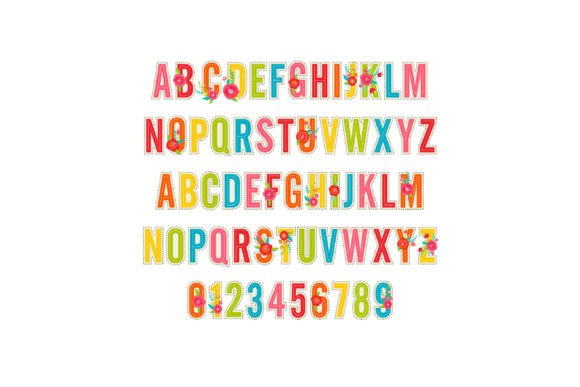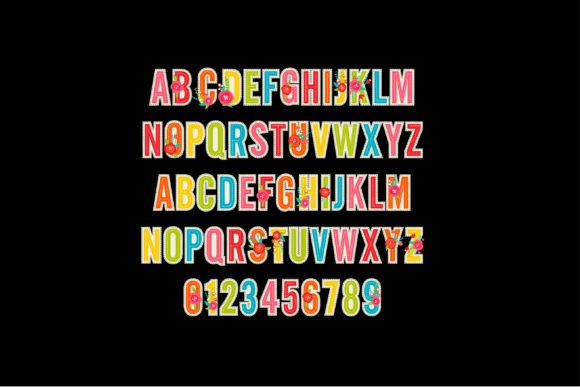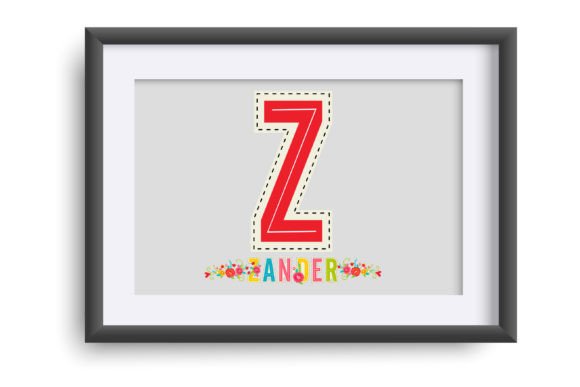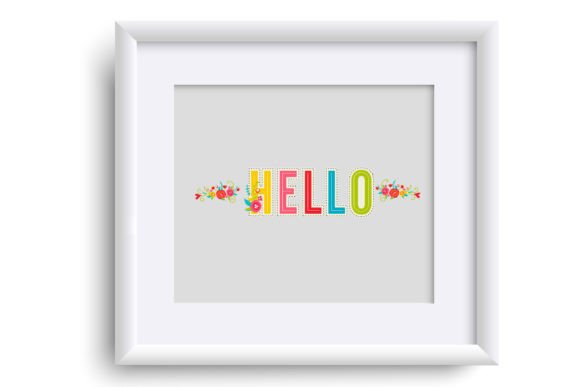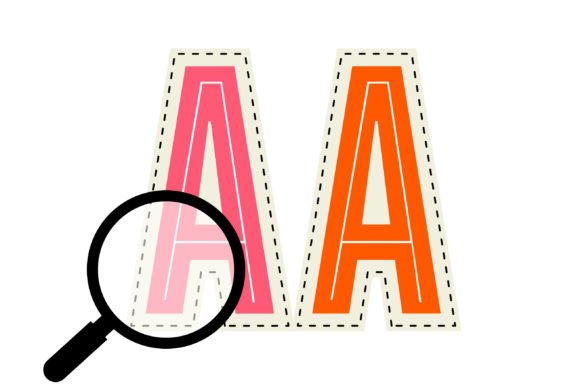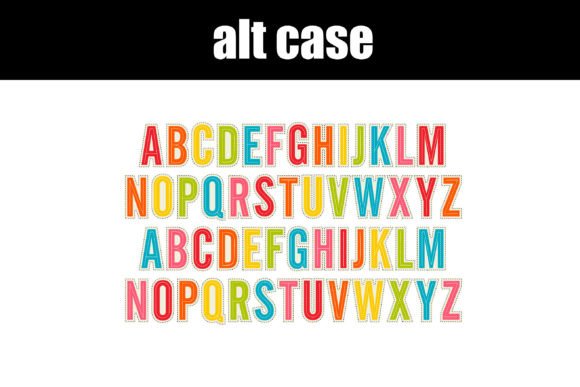
Introduction to Rainbow Notes Font
Rainbow Notes is a quirky and colorful color font that is perfect for adding a unique and eye-catching touch to your designs.
With its unconventional letterforms and bright hues, itโs sure to make a statement and convey a sense of creativity and originality Ideal for branding, packaging, and digital projects that require a touch of personality.